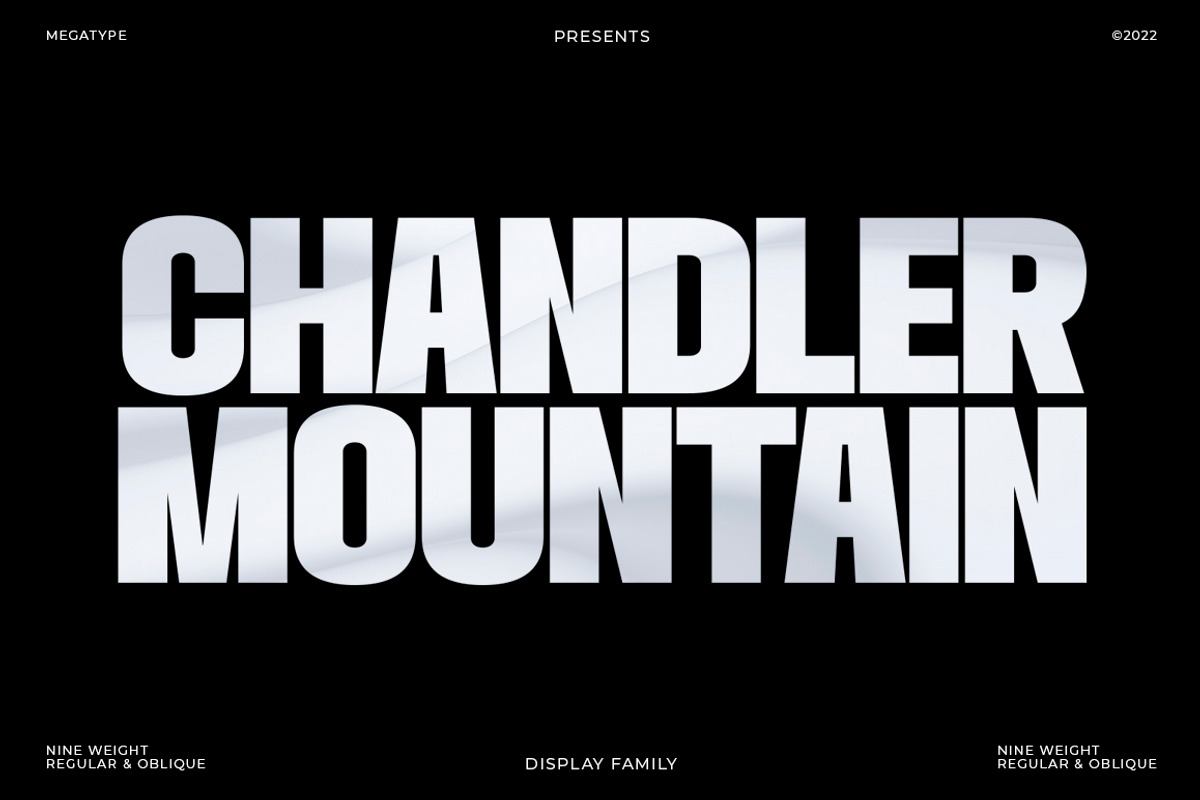
Chandler Mountain Font Free Download is a bold and rustic typeface designed to bring an earthy, adventurous vibe to your designs. Featuring strong, geometric letterforms with a rugged, mountain-inspired aesthetic, this font is perfect for outdoor branding, adventure logos, hiking posters, and nature-themed projects.
Whether you're designing for a camping brand, creating promotional materials for an outdoor event, or crafting a rugged logo, Chandler Mountain Font Free Download adds a sense of strength, durability, and nature to your typography.
Its versatility ensures it works beautifully in both print and digital formats, making it a great choice for any creative project with a bold and adventurous spirit.